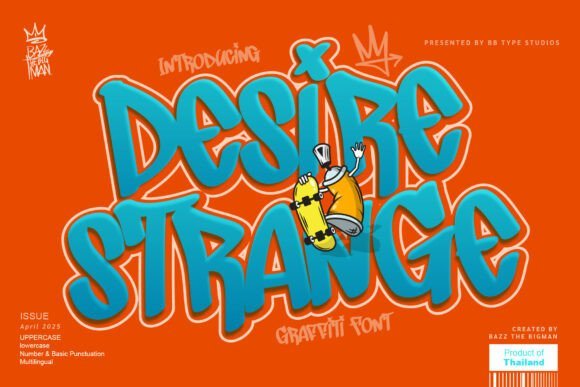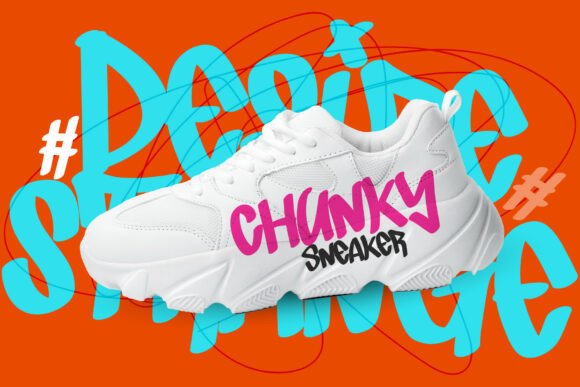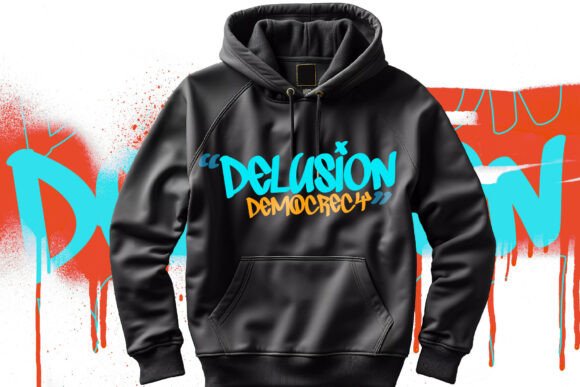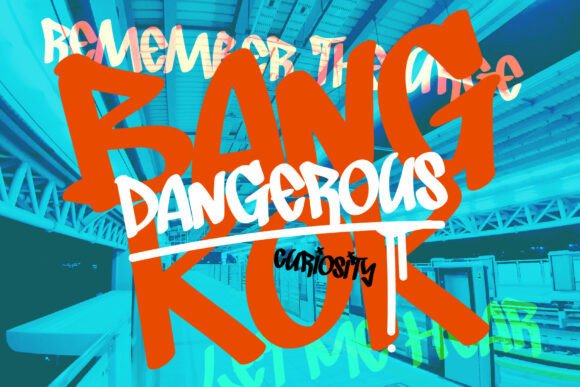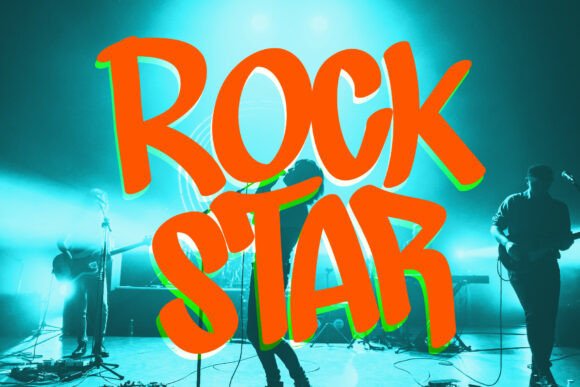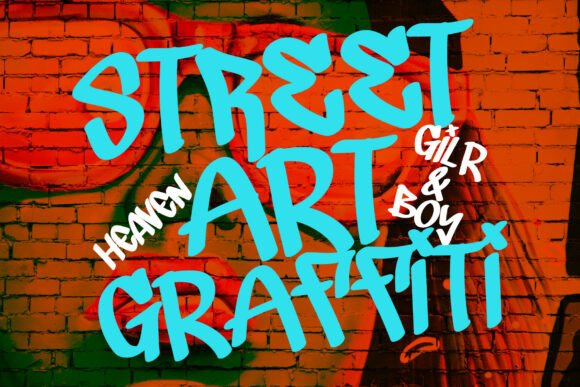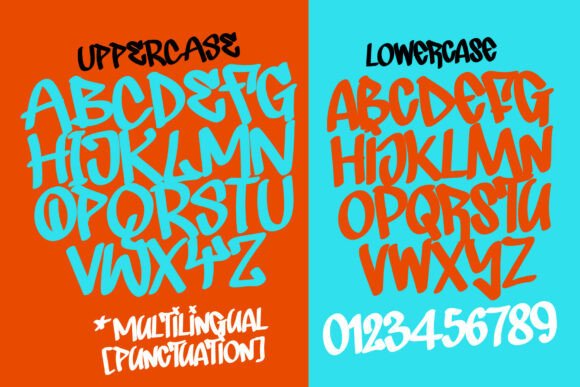
Unleash Your Inner Rebel: Introducing the Desire Strange Font
Have you ever found yourself standing in front of a vibrant street art mural, feeling the pulse of the city and the creativity that flows through it? For designers, that moment of inspiration is what drives us to push the boundaries of art and design. It’s the spark that ignites a new project, a new idea, or a new way of thinking.
That’s where the Desire Strange Font comes in – a bold, graffiti-inspired font that captures the rebellious spirit of urban art. Its assertive character is perfect for transforming your designs into evocative pieces of art that scream with energy and dynamism. Whether you’re creating logos, T-shirts, book covers, or posters, the Desire Strange Font is the perfect tool to infuse your designs with the thrill of the downtown scene.
Desire Strange Font Key Features
- Font Size: 1,200 glyphs, including a wide range of characters for multilingual support
- Resolution: Supports high-resolution display, ideal for use in digital media
- Unique Characteristics: This font features a unique blend of modern and vintage elements, with a distinctive, hand-drawn feel and intricate details
- Language Support: Designed to support multiple languages, including Latin, Cyrillic, and Greek alphabets
Desire Strange Font Review
Overall, I think “Desire Strange Font” is a unique and intriguing addition to any design project. ✨ One of the things I love about this font is its eclectic mix of styles, which can add a touch of sophistication and elegance to even the most mundane designs. ✨ The font’s versatility makes it suitable for a wide range of applications, from headings and titles to body text and even logos.
Another strength of “Desire Strange Font” is its robust character set, which includes a wide range of languages and special characters. ✨ This makes it an excellent choice for designers who need to create content that caters to diverse audiences.
One of the main limitations of “Desire Strange Font” is its relatively limited legibility at smaller font sizes. ⚠️ This can make it difficult to read in certain contexts, such as in small text or on low-resolution screens. ⚠️ Additionally, the font’s more ornate features can be overwhelming in certain situations, making it difficult to read or even distracting.
Features
- Unique and eclectic mix of styles
- Robust character set, including multiple languages and special characters
- Suitable for a wide range of applications, from headings to body text
- Excellent choice for designers who need to create content for diverse audiences
Overall, I would give “Desire Strange Font” 4 out of 5 stars. While it has some limitations, its unique style and versatility make it a valuable addition to any design project.
Practical Application Guide: Desire Strange Font
Tips: Use Desire Strange Font to add a touch of elegance to your titles, headings, or quotes. Experiment with different font sizes and colors to create visual interest.
Tips: Use Desire Strange Font to create custom logos, icons, or graphics. Experiment with different font sizes and colors to create a unique visual identity.
Tips: Use Desire Strange Font to add a touch of sophistication to your headings, titles, or body text. Experiment with different font sizes and colors to create visual interest.
Desire Strange Font is perfect for:
- Creating custom logos and icons
- Adding a touch of elegance to titles and headings
- Designing unique graphics and graphics
- Creating visual interest in presentations and documents